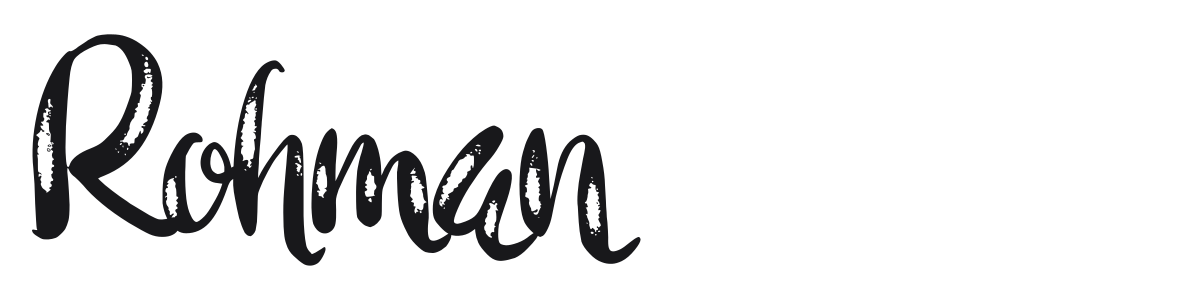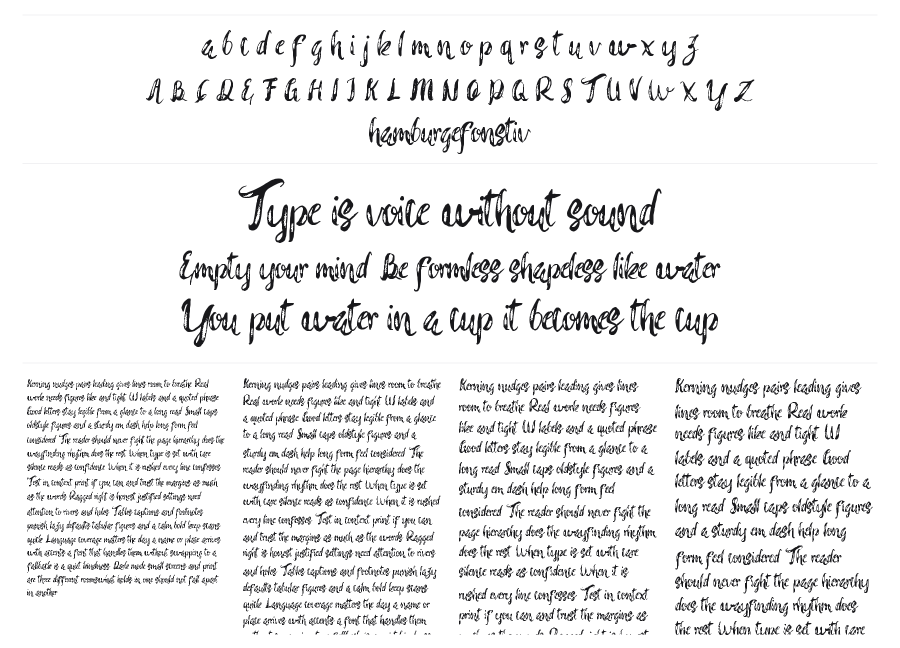
Rohman
Rohman is a bold brush script with heavy ink texture and high stroke contrast that makes every word feel handwritten under pressure. The rough bristle edges and sweeping connected strokes give it an authentic calligraphic energy, somewhere between street art and wedding stationery. It commands attention at large sizes.